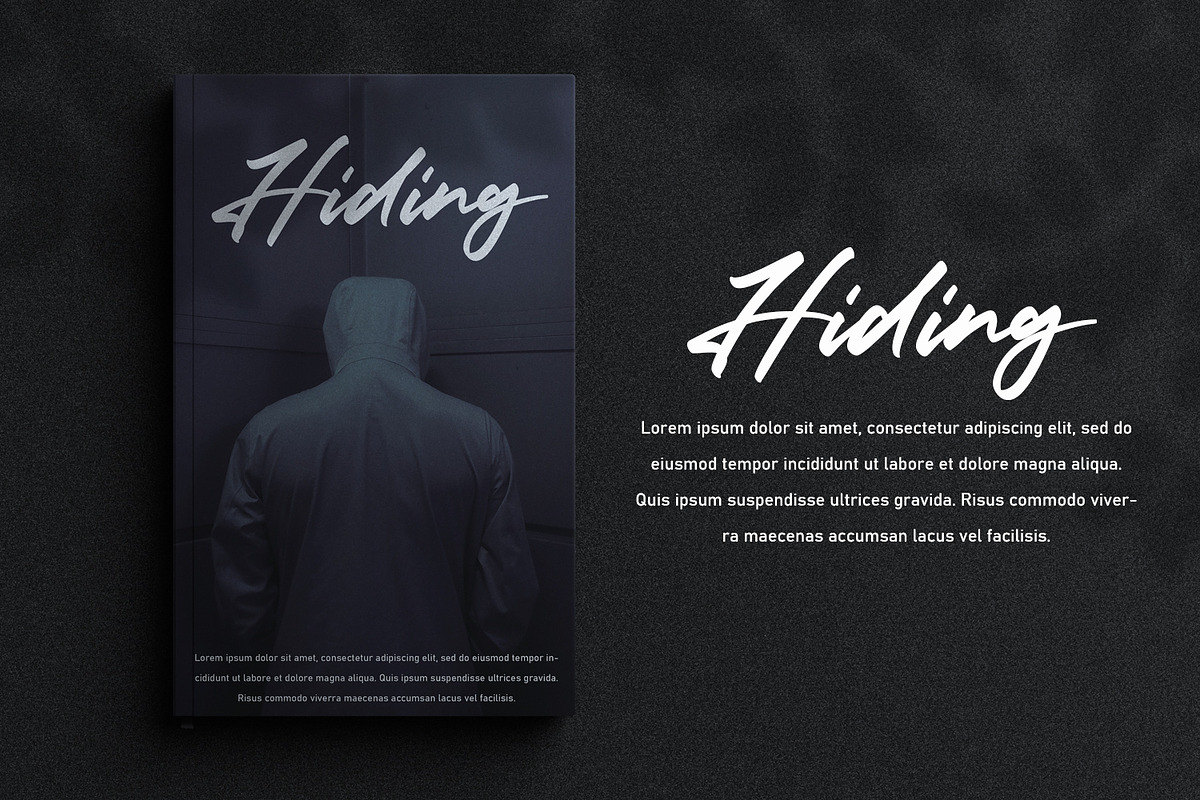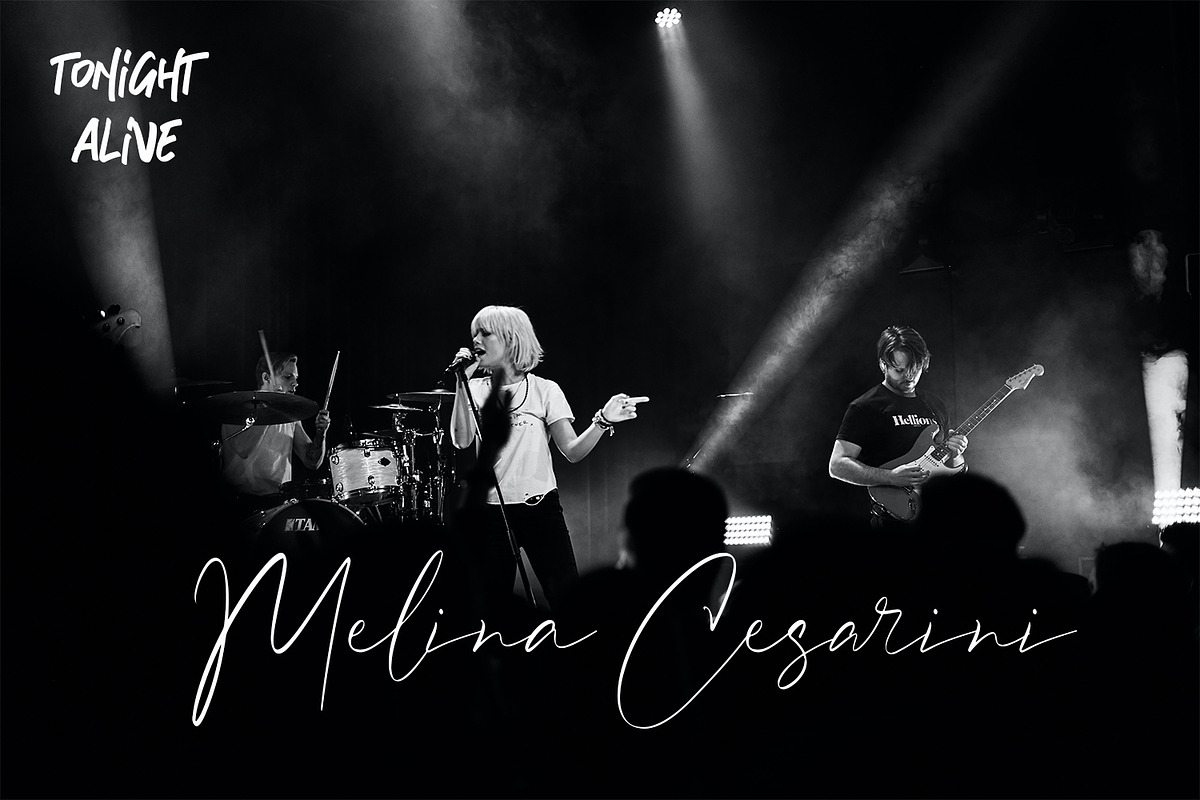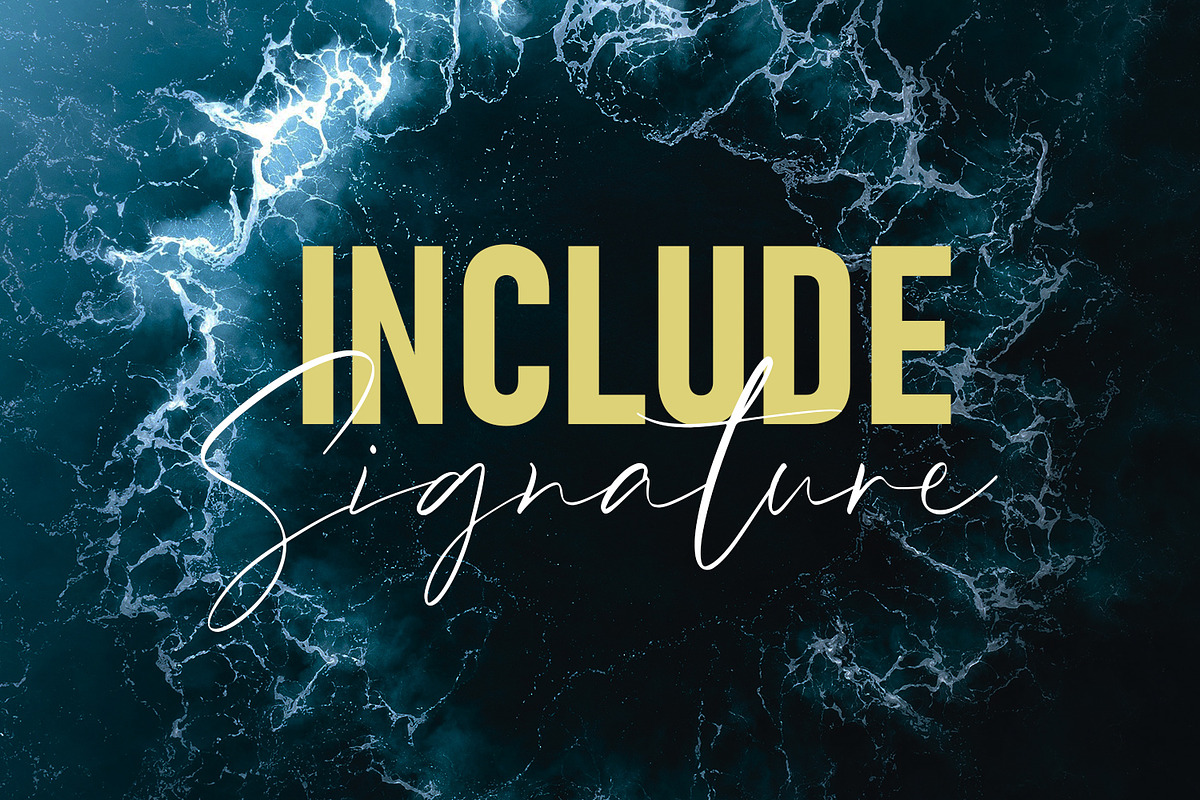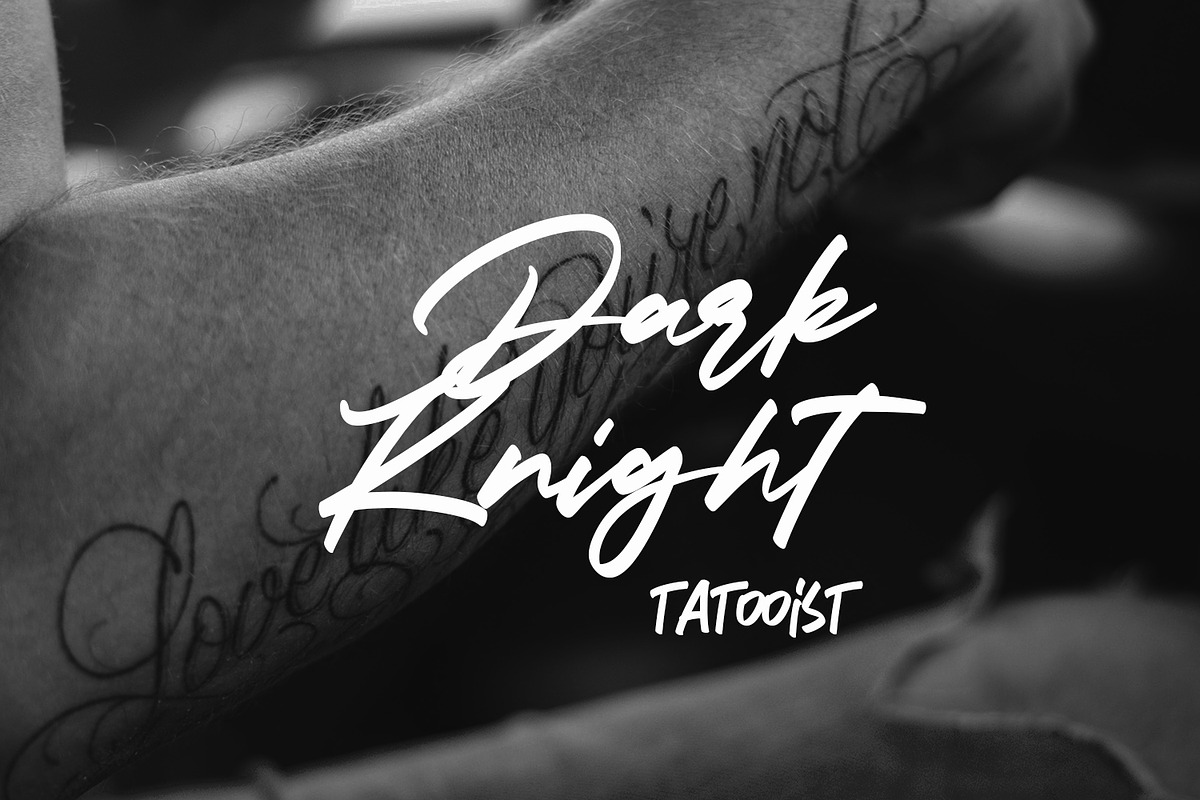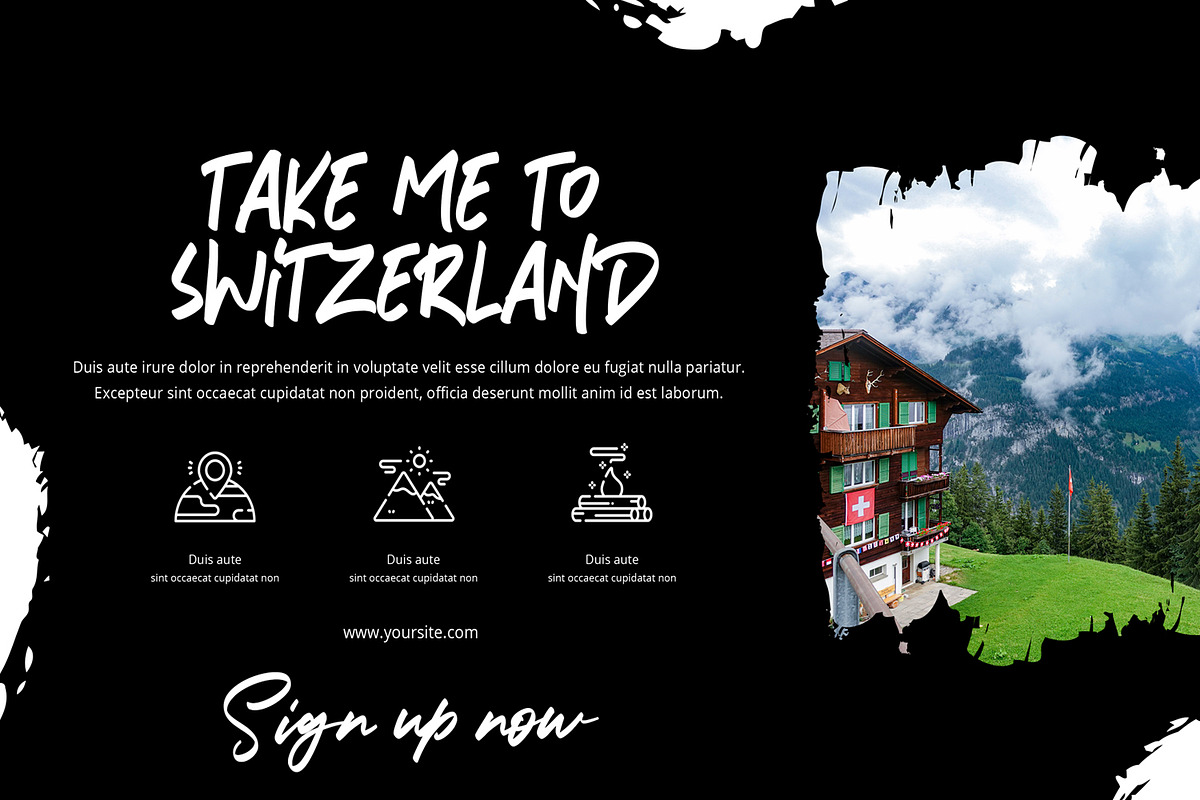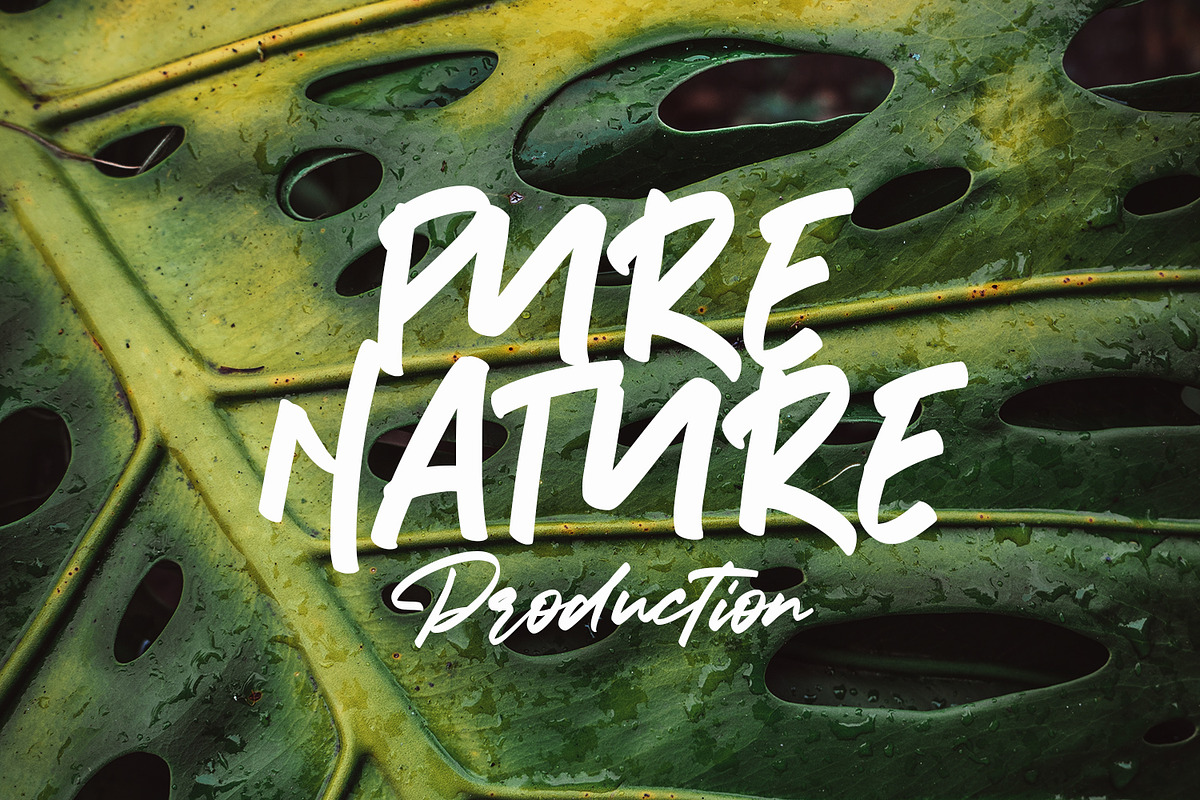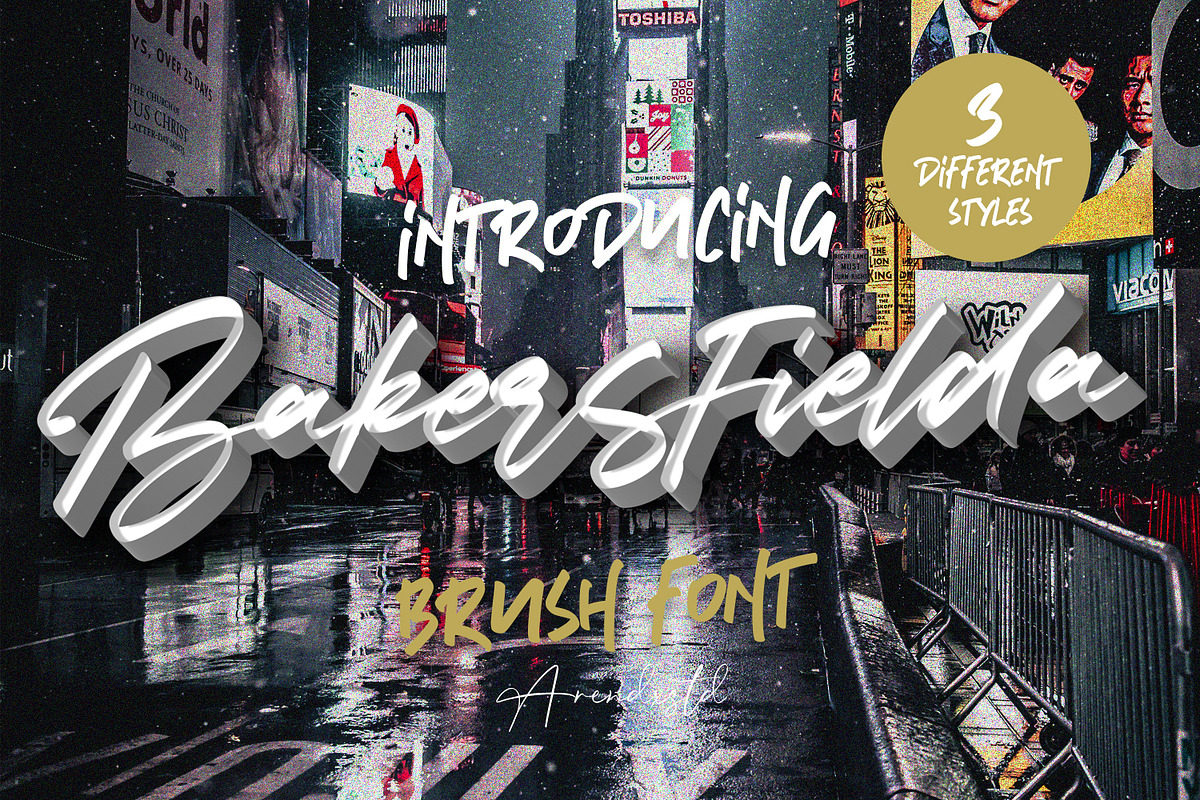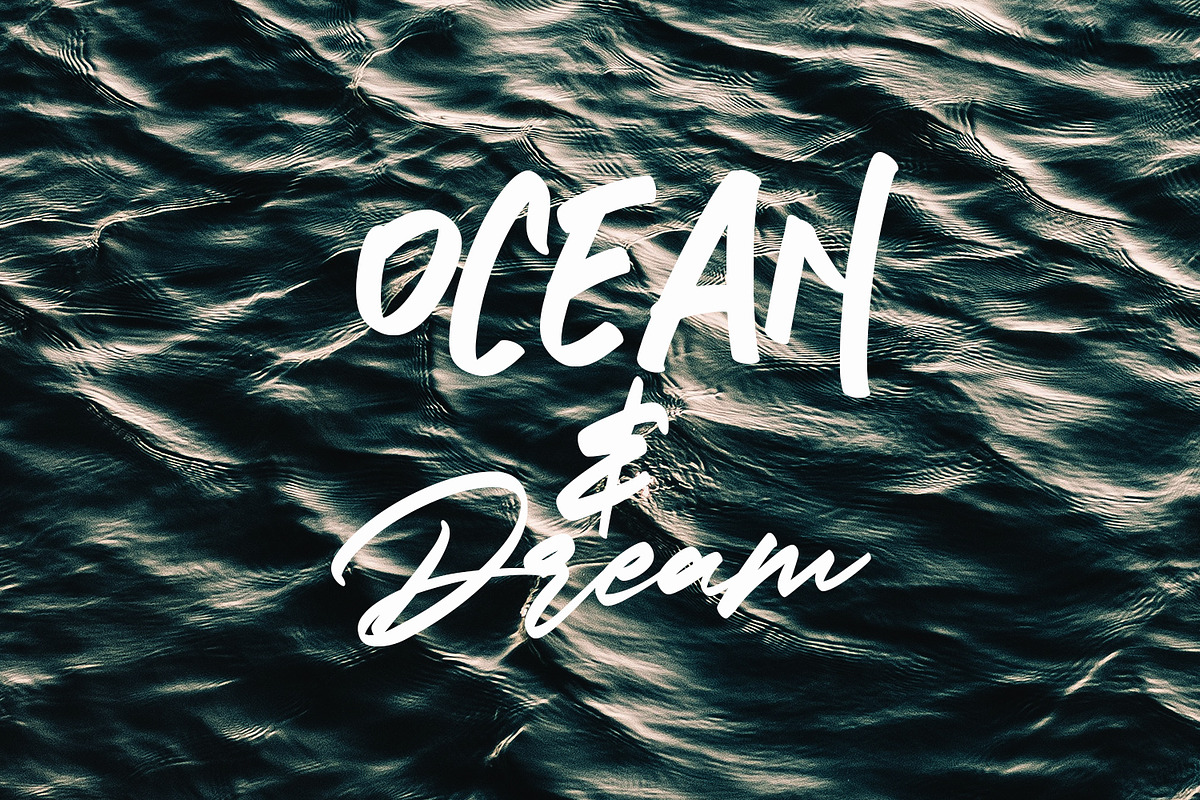
Bakersfield - 3 Font Combination
Bakersfield is a combination font with 3 different style variations that will make you feel easy to apply in your various design projects Bakersfield came with opentype features such stylistic alternates, stylistic sets & ligatures good for logotype, poster, badge, book cover, tshirt design, packaging and any more.
- Bakersfield Regular
- Bakersfield Brush Regular
- Bakersfield Siganture Regular